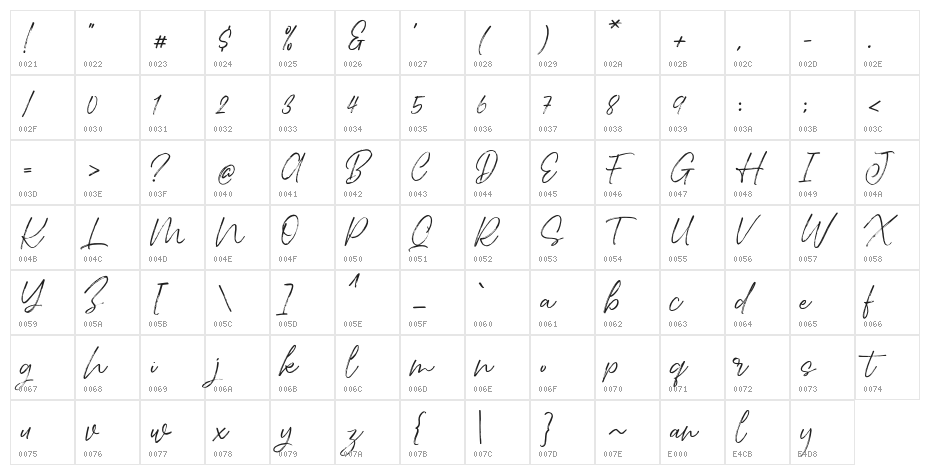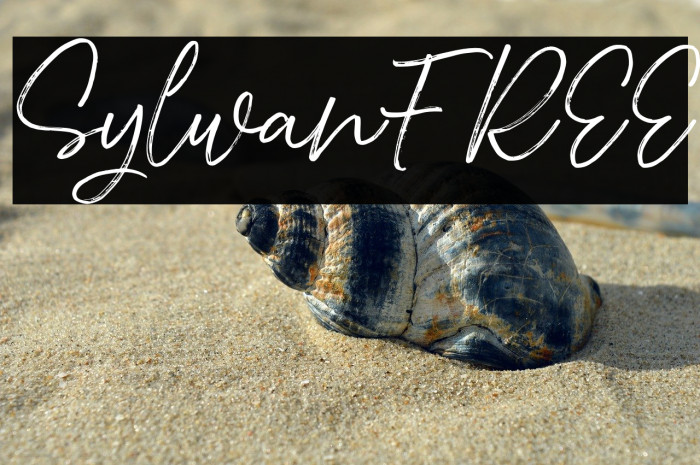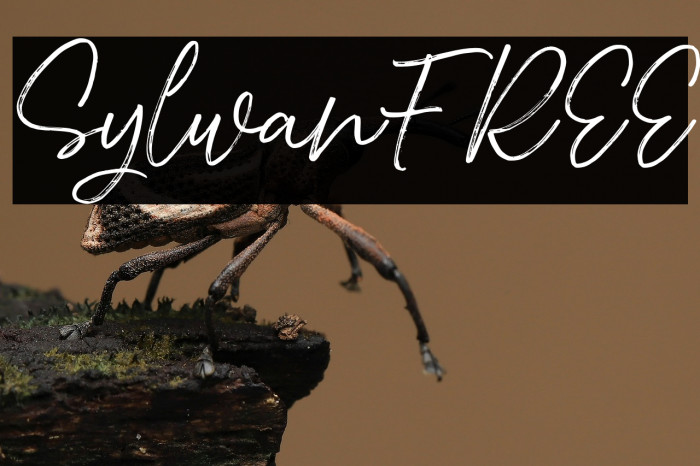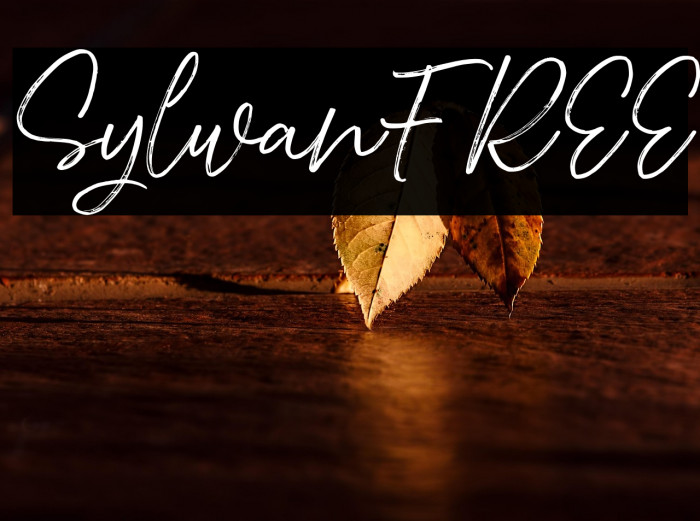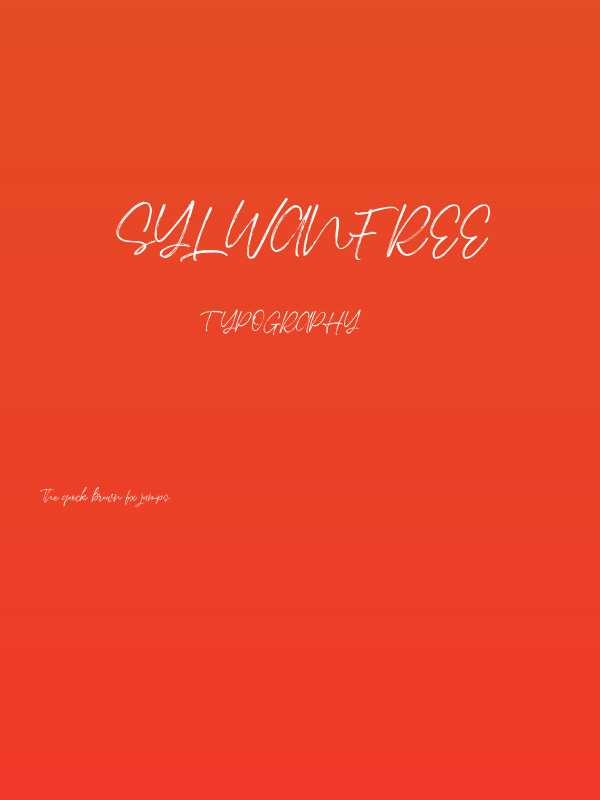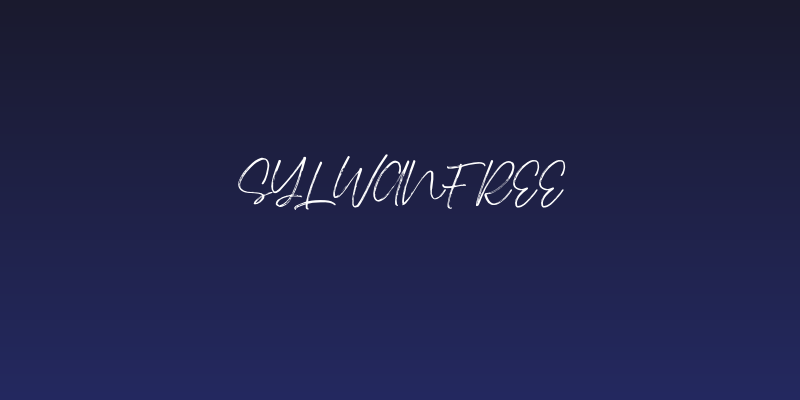
SylwanFREE Font
SylwanFREE Description
A handwritten script font with a casual and flowing style, featuring irregular strokes and a natural, organic appearance.
| Overall Style | Casual, Organic |
| Use Case | Logos, Invitations, Personal projects |
| Proposed Projects | Invitations, greeting cards, personal branding. |